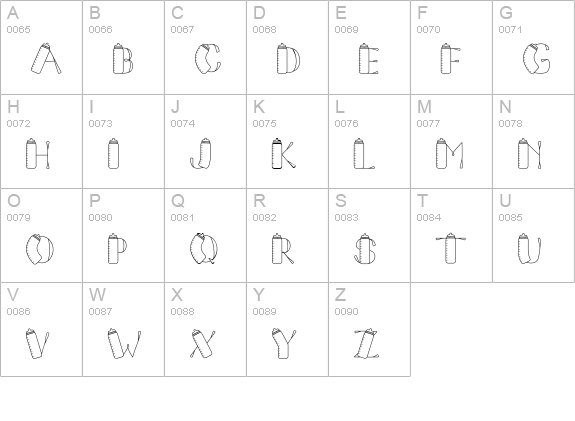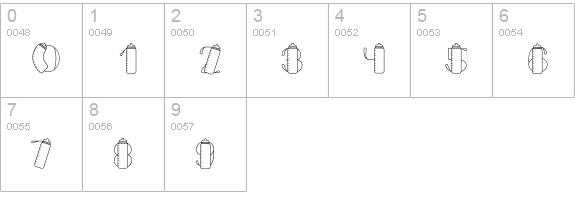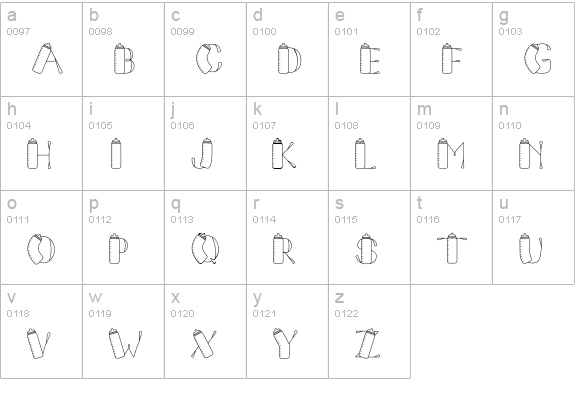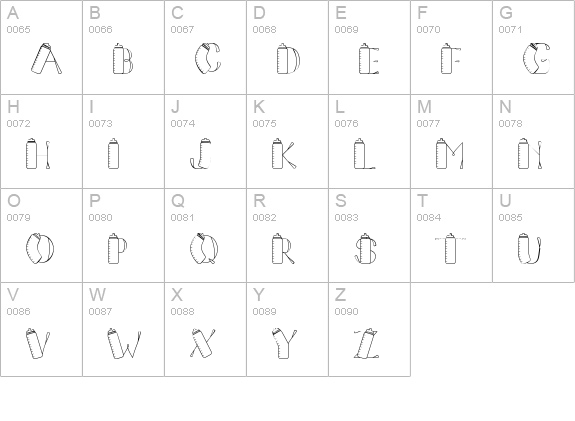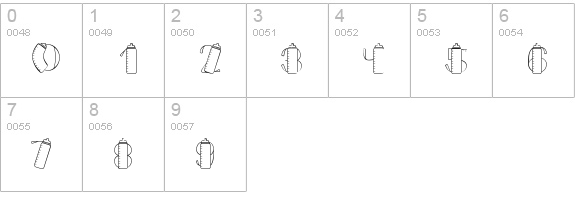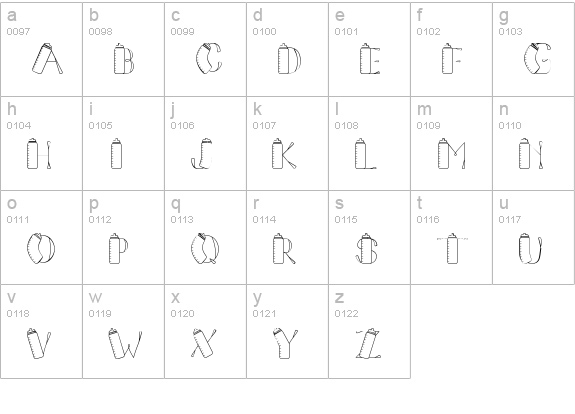
CK Baby Bottle Font Details
Introducing CK Baby Bottle font, a delightful and charming typeface perfect for adding a touch of playfulness to your designs. This whimsical font features round, bubbly letterforms that evoke a sense of innocence and joy. Whether you're designing invitations, greeting cards, or children's book covers, CK Baby Bottle font is sure to bring a smile to your audience's faces. Best of all, CK Baby Bottle font is available for free download at FontsMarket.com. Now you can easily access this fun and versatile font to enhance your projects without any cost. Don't miss out on the opportunity to add CK Baby Bottle font to your font library and unleash your creativity with its adorable and unique style. Download it today and let your designs stand out with a touch of sweetness and fun.